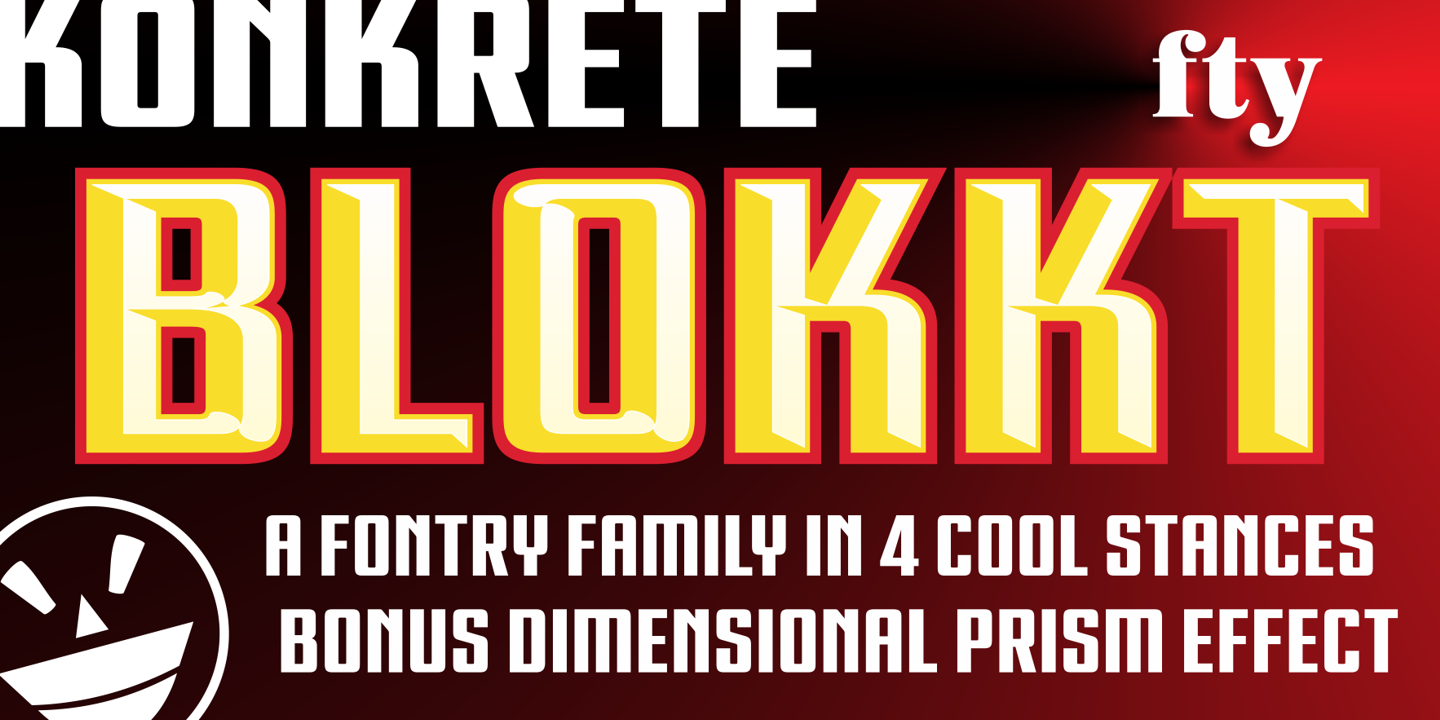
FTY Konkrete Font is perfect for industrial design studios, construction company branding, architectural firm presentations, urban development projects, concrete manufacturing materials, modern brutalist exhibitions, infrastructure engineering graphics, industrial manufacturing signage, contemporary art installations, and minimalist architectural publications.
What makes FTY Konkrete Font so exciting is its powerful embodiment of industrial strength and architectural brutalism through boldly constructed letterforms that capture the raw beauty and uncompromising functionality of modern concrete construction and industrial design. The font's design philosophy celebrates the honest expression of materials and the bold simplicity that defines brutalist architecture, featuring robust proportions, structural integrity, and industrial details that mirror the monolithic strength of reinforced concrete, the geometric precision of modernist buildings, and the unadorned functionality that makes industrial design so compelling and enduring. Each character stands with the unwavering solidity and purposeful simplicity that defines concrete as both a building material and a design philosophy, creating a visual language that instantly communicates strength, authenticity, and the raw beauty of industrial craftsmanship.
The FTY Konkrete Font family includes industrial variations: Regular, Bold, Light, Medium, Condensed, Extended, Italic, Heavy, and Structural styles. Each variation maintains the font's characteristic concrete authenticity while offering different levels of industrial intensity and architectural detail for various construction, engineering, and industrial design applications.
When searching for a typeface that embodies the essence of concrete construction and industrial strength, FTY Konkrete Font Free Download represents the perfect fusion of architectural honesty with typographic durability that elevates any project to new levels of industrial authenticity and structural appeal.
The structurally engineered letterforms of FTY Konkrete Font demonstrate superior attention to industrial design principles, featuring concrete proportions, structural spacing, and architectural curves that ensure optimal readability while maintaining the font's distinctive industrial character. Its versatile design adapts seamlessly from intimate construction documents to massive architectural signage.
Professional designers working on construction industries, architectural firms, and industrial organizations particularly value the font's ability to convey structural integrity, industrial authenticity, and architectural strength. The typeface works exceptionally well for projects targeting construction professionals, industrial designers, and anyone seeking to project solid positioning and concrete excellence.
The comprehensive OpenType features of FTY Konkrete Font include industrial alternates, structural ligatures, and specialized construction characters that enable designers to create authentic industrial typography while maintaining the font's distinctive concrete character throughout all design elements and architectural applications.